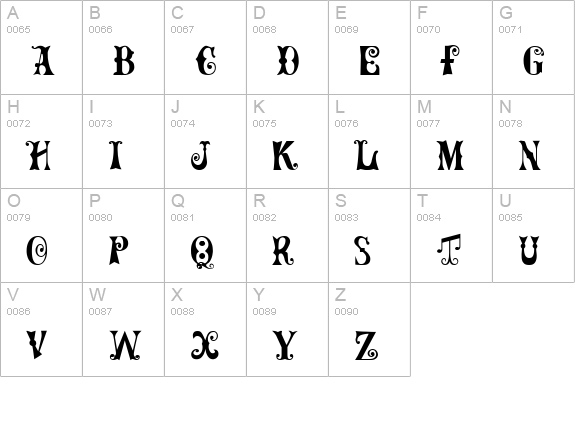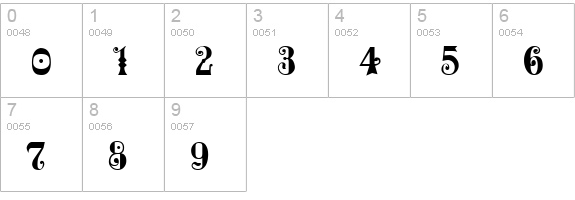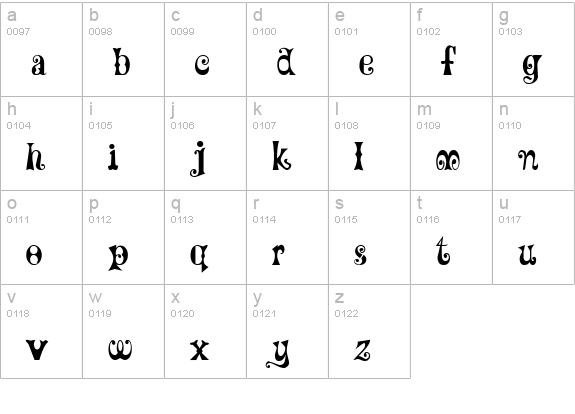
MaxCircus Font Details
MaxCircus font is a whimsical and playful typeface that brings a touch of fun and excitement to any design project. With its bold and rounded letterforms, MaxCircus is perfect for creating eye-catching headlines, posters, and logos. The unique character shapes and lively appearance make this font stand out from the crowd and add a sense of joy and energy to your designs. Best of all, MaxCircus font is completely free to download at FontsMarket.com. Whether you're a designer looking to add a touch of creativity to your work or someone who simply loves unique and fun fonts, MaxCircus is the perfect choice. Download it today and unleash your creativity with this charming and delightful typeface.